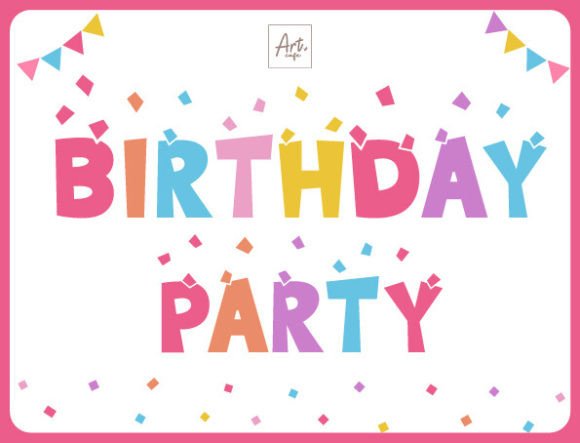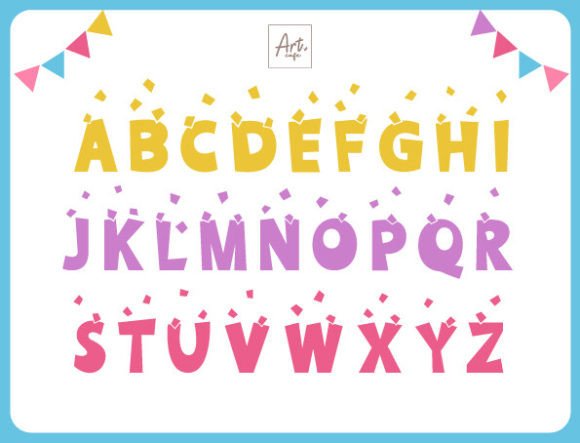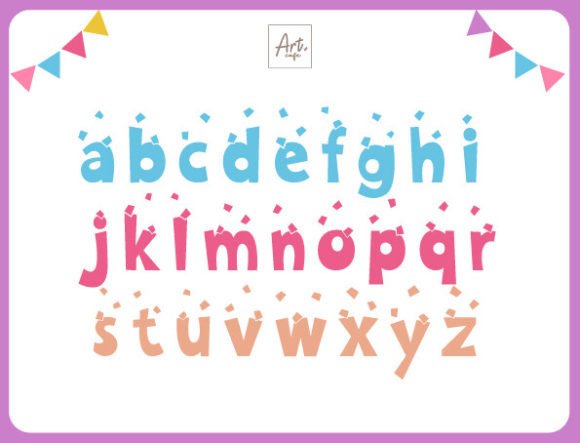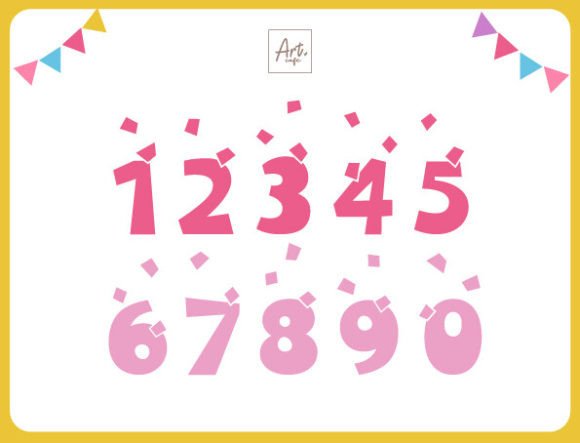
About the Birthday Party Font
The Birthday Party Font offers a perfect balance of form and function for your design needs. Immerse yourself in the cheerful ambiance of celebration with the Birthday Party font. This vivacious design, speckled with festive confetti details, is ideally tailored for jubilant parties, delightful carnivals, or engrossing kids’ events. With its fun, youthfully spirited approach, Birthday Party is more than just a font, it’s an invitation to play and revel in joyous occasions. Experience the charming evocation of amusement and merriment, rightfully embedded within every curve and line of the Birthday Party font.